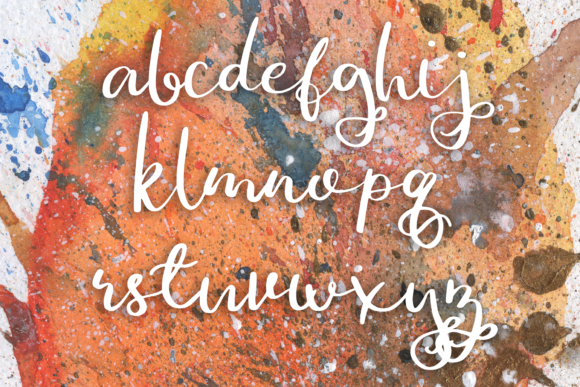
Gina Ann Font: Add a Bold Twist to Your Creative Projects
Are you tired of using the same old fonts in your creative projects? Look no further than the Gina Ann Font, a unique handwritten font that’s bursting with personality. This bold and eye-catching font is perfect for designers and crafters who want to add a touch of whimsy and style to their work.
What is Gina Ann Font?
Gina Ann Font is a one-of-a-kind handwritten font that’s designed to make a statement. With its bold and expressive letters, this font is sure to grab attention and add a touch of personality to any creative project. Whether you’re working on a logo, a poster, or a digital project, Gina Ann Font is the perfect choice for anyone who wants to stand out from the crowd.
Key Features of Gina Ann Font
- Unique Handwritten Style: Gina Ann Font features a distinctive handwritten style that’s both elegant and playful.
- Bold and Expressive Letters: Each letter in the Gina Ann Font is carefully crafted to make a statement, with bold lines and expressive curves.
- Perfect for Creative Projects: Whether you’re a designer, crafter, or DIY enthusiast, Gina Ann Font is the perfect choice for adding a touch of personality to your work.
Why Choose Gina Ann Font?
So why choose Gina Ann Font over other fonts on the market? Here are just a few reasons why this font stands out:
- Originality: Gina Ann Font is a truly unique font that’s unlike anything else on the market.
- Versatility: This font can be used in a wide range of creative projects, from logos and posters to digital projects and more.
- Emotional Connection: The handwritten style of Gina Ann Font creates an emotional connection with the viewer, making it perfect for projects where you want to convey a sense of personality or whimsy.
How to Use Gina Ann Font
Using Gina Ann Font in your creative projects is easy. Here are a few tips to get you started:
- Pair with Other Fonts: Gina Ann Font pairs well with other fonts, so don’t be afraid to experiment with different combinations.
- Use for Headlines: The bold and expressive letters of Gina Ann Font make it perfect for headlines and titles.
- Add a Pop of Color: Use Gina Ann Font in a bold, bright color to add a pop of personality to your project.